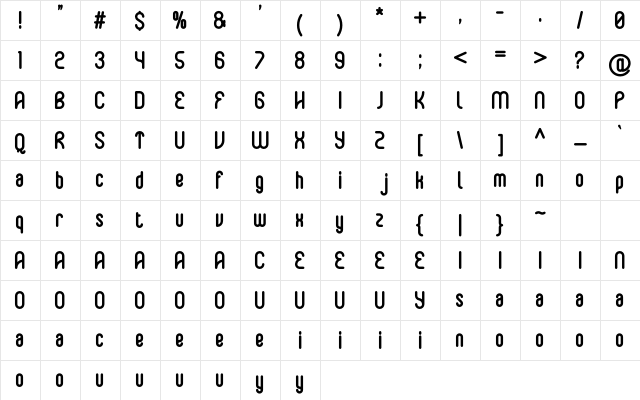
Hakone Bold Bold
Design Context for Hakone Bold Typeface
Hakone Bold offers clean, dependable letterforms without strong stylistic allegiance, making it a practical choice for designers who need flexibility. The heavy weight commands attention and anchors typographic hierarchies.